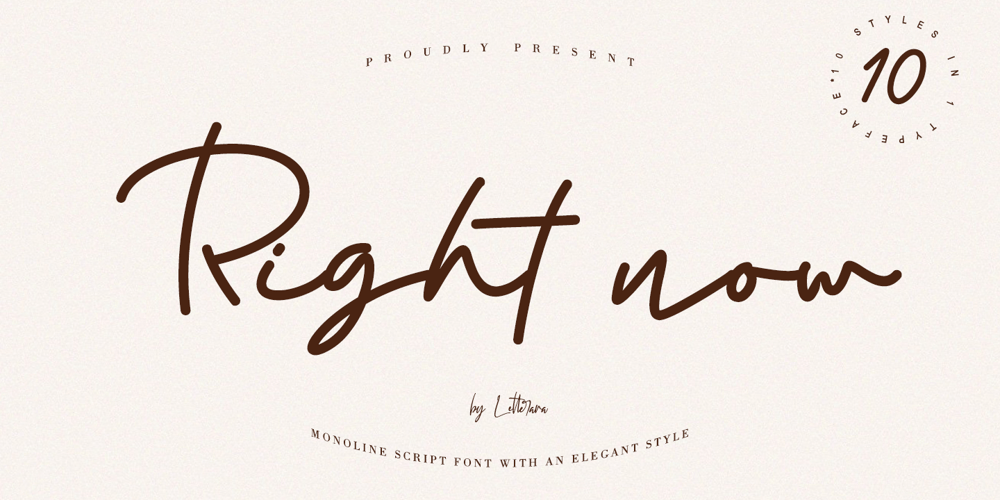
Right Now Font Family was designed by Thomas Aradea and published by Letterara. Right Now contains 9 styles and family package options. Right Now is monoline script font with an elegant style. Get inspired by its contemporary style! This font 10 weights: Thin, Light, Regular, Semi Bold, Bold, Thin Italic, Light Italic, Semi Bold Italic, Bold Italic don’t wait anymore, put it in your shopping basket ๐ and follow me, because there will be many promos!